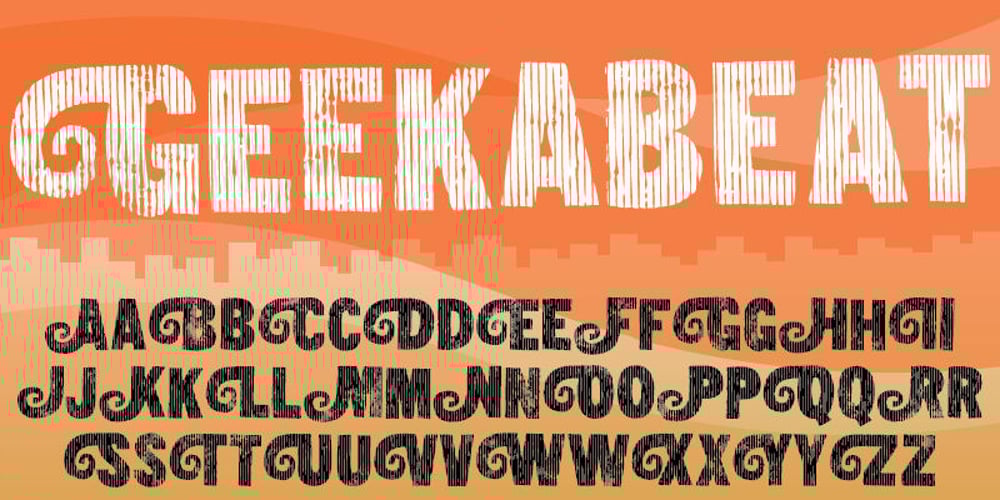
Geekabeat Font Family was designed by Jakob Fischer and published by PizzaDude.dk. Geekabeat contains 1 styles and family package options. Geekabeat is my wooden lookalike grunge typeface! All uppercase letters has got a funky swirl. Comes with different upper- and lowercase letters, alternate letters (both upper- and lowercase!) and ligatures for both double letters and double numbers, along with ligatures for most common letter-combinations – and of course it has got unique accented letters! You will need to use OpenType supporting applications to use the ligatures.